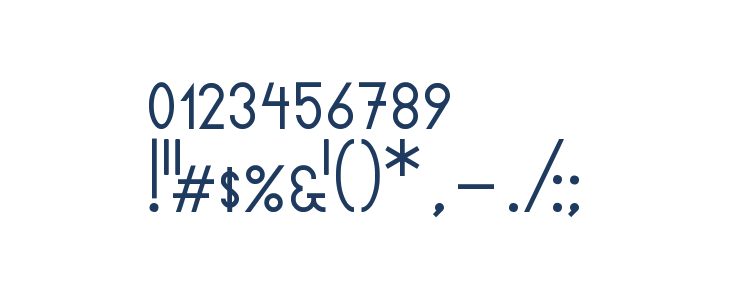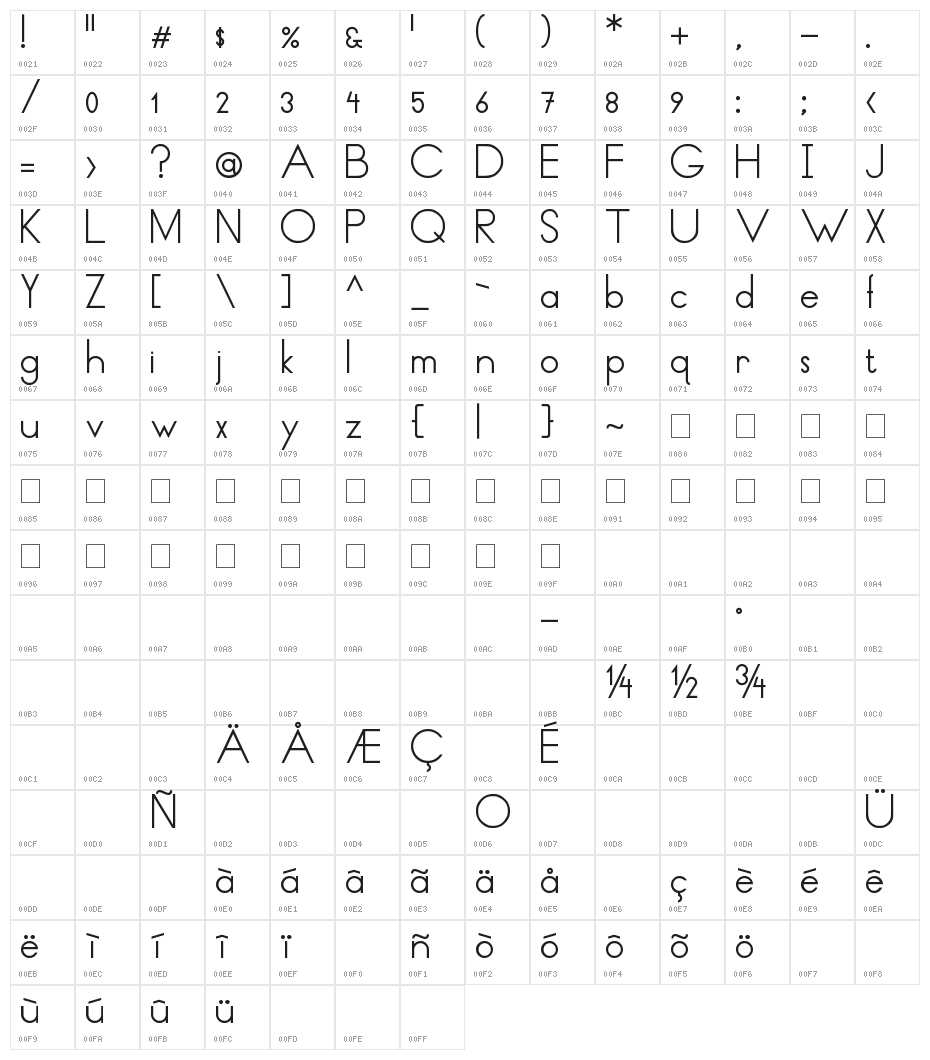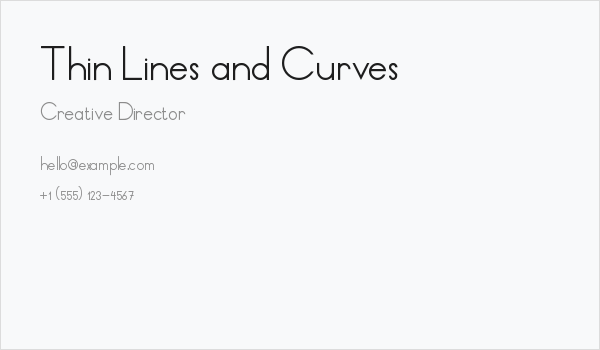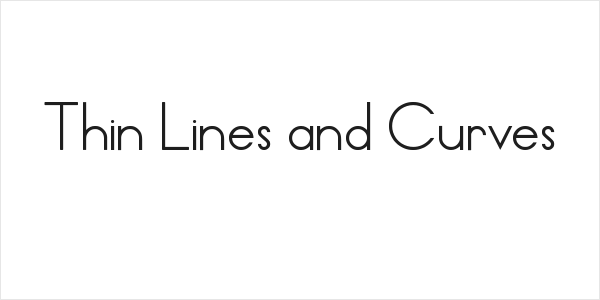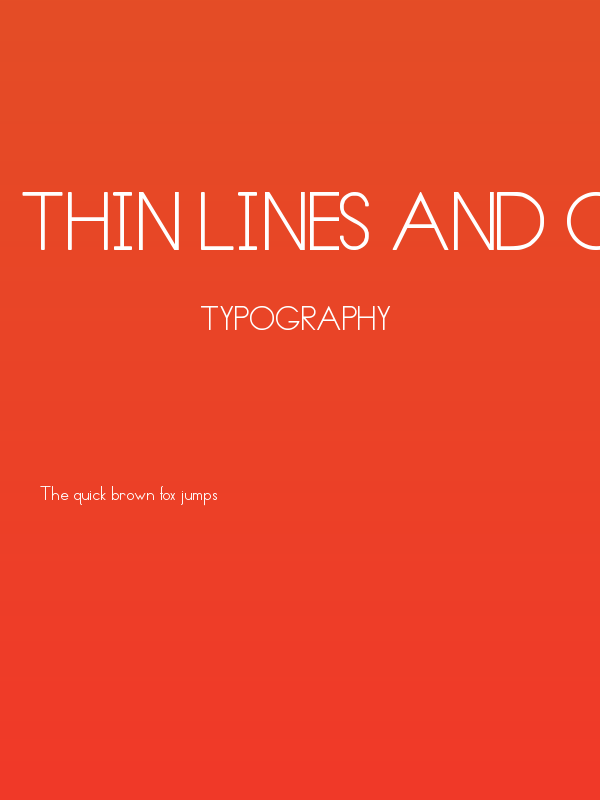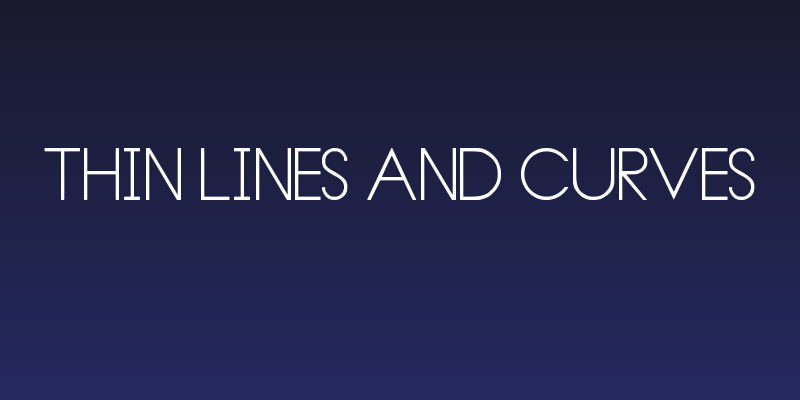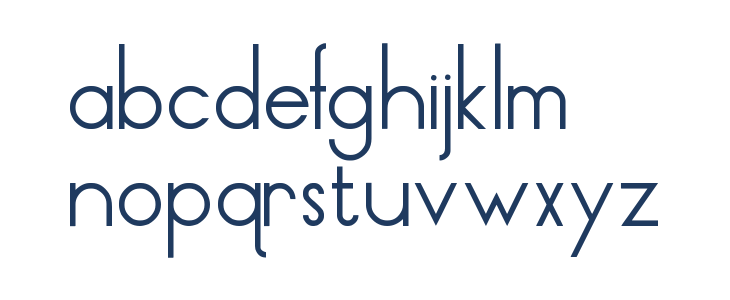
Thin Lines and Curves Font
Thin Lines and Curves Description
This font features a sleek and modern design with thin lines and smooth curves, creating an elegant and minimalist appearance. The uppercase letters are uniform in height, while the lowercase letters maintain a consistent baseline, contributing to a clean and organized look. The numerals are straightforward and align well with the overall aesthetic, making them easy to read. Special characters are crafted with the same attention to detail, ensuring they integrate seamlessly with the rest of the font. This font's simplicity and clarity make it versatile for various design applications.
| Proposed Projects | Ideal for branding, editorial design, websites, and minimalist posters. |